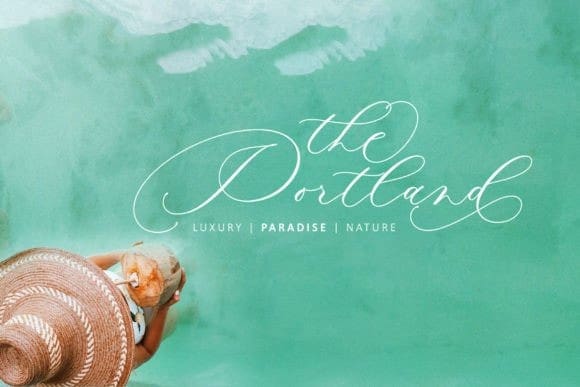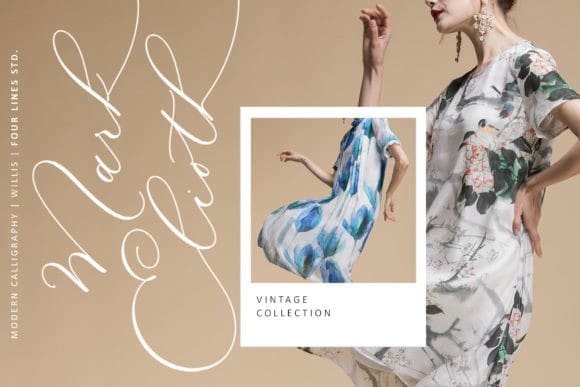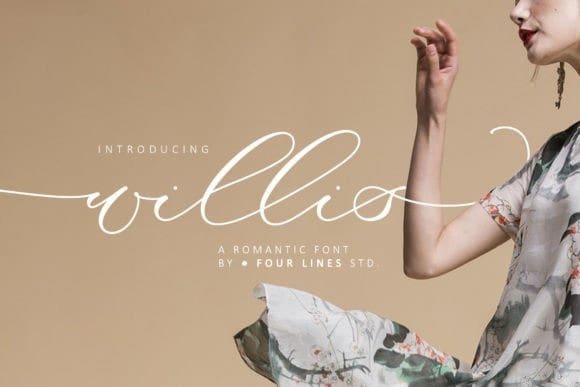
Willis Font
Willis Font is a modern and fashionable Calligraphy script font. It looks sweet and elegant, and it is perfect for various projects such as logos, wedding invitations, headings, letterhead, signage, labels, news, posters, badges, and more. Add it to your most creative ideas and notice how it makes them come alive!